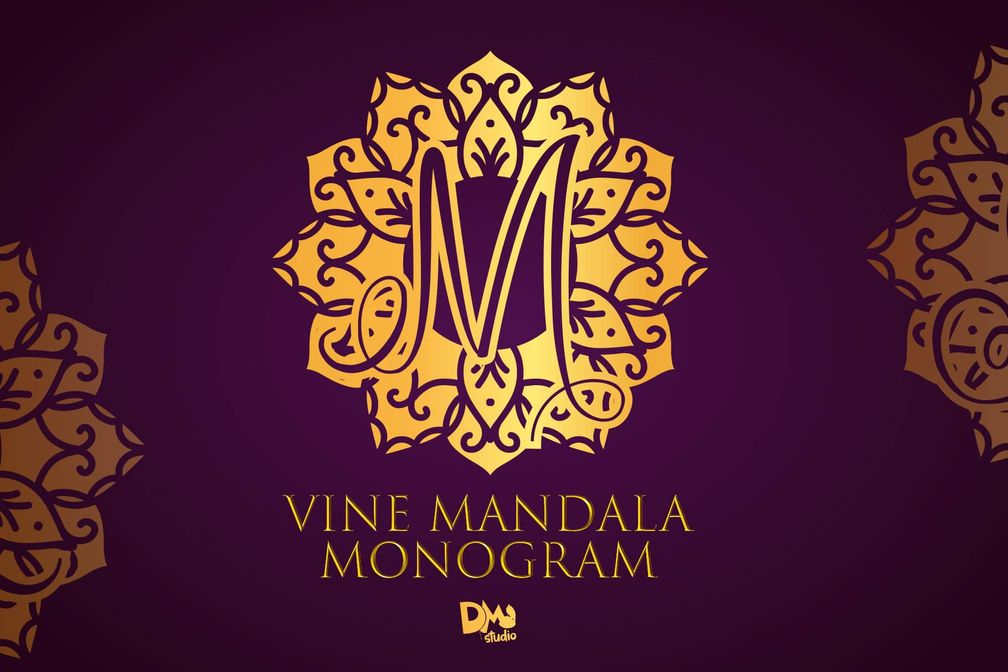
Vine Mandala Monogram
Vine Mandala Monogram – Elegant & Nature-Inspired Monogram Font
Vine Mandala Monogram is a beautifully crafted monogram font that combines flowing vine elements with intricate mandala details. Inspired by the elegance of nature and ornamental linework, this font is perfect for wedding suites, eco-friendly branding, natural product packaging, personalized gifts, and holistic wellness designs. Its graceful and earthy aesthetic brings harmony and sophistication to any creative project.
• Organic Vine & Mandala Motifs: Each letter is adorned with delicate vine curves and ornamental mandala patterns.
• Perfect for Nature-Themed Projects: Great for botanical branding, spa logos, wedding invites, and eco designs.
• Refined & Artistic Look: Balances graceful lines with detailed flourishes for a timeless appeal.